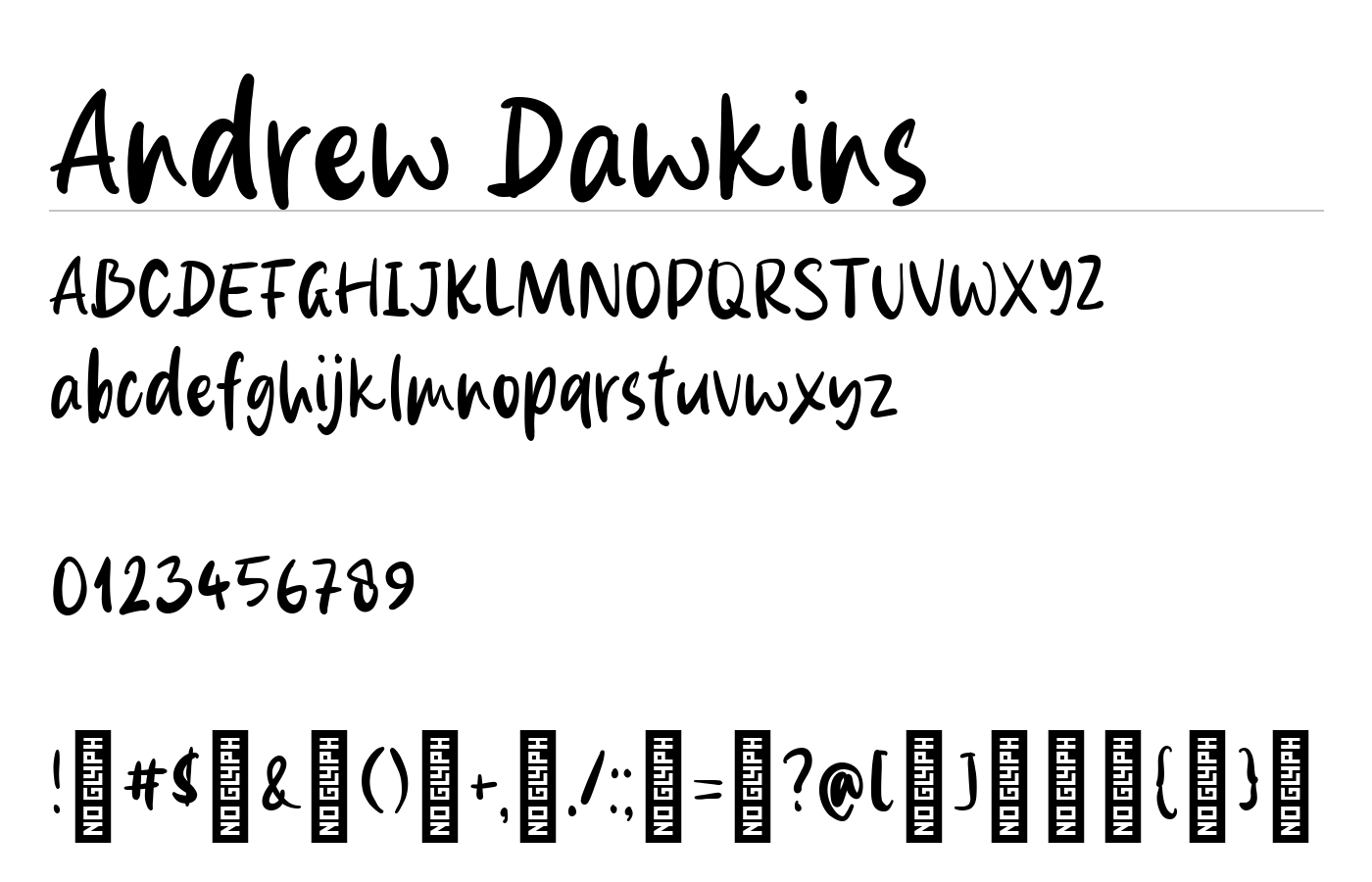
Andrew Dawkins is a playful and informal handwritten font that features smooth, rounded strokes with a casual, organic feel. It offers a friendly and approachable personality, making it ideal for creative projects, personal branding, and designs seeking a warm, human touch. This font works well in headlines, logos, and social media graphics where a relaxed and genuine vibe is desired.
Andrew Dawkins Font
About Andrew Dawkins Font